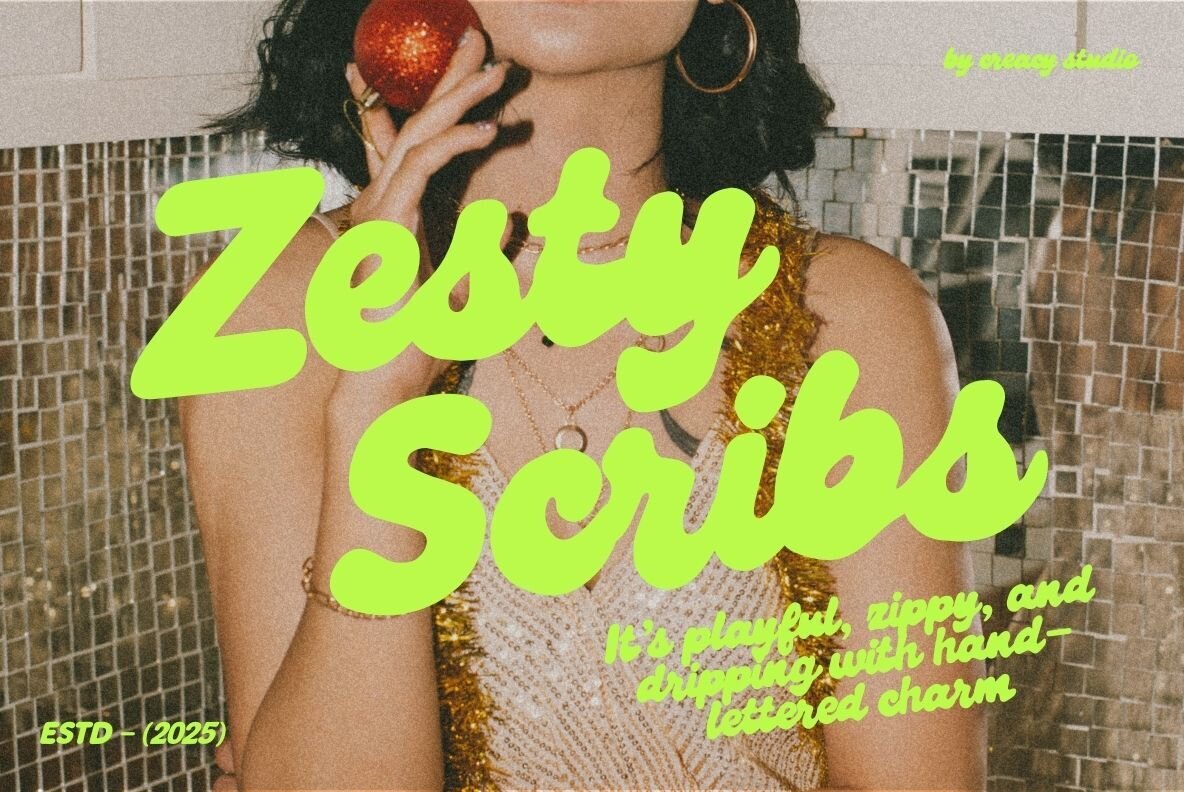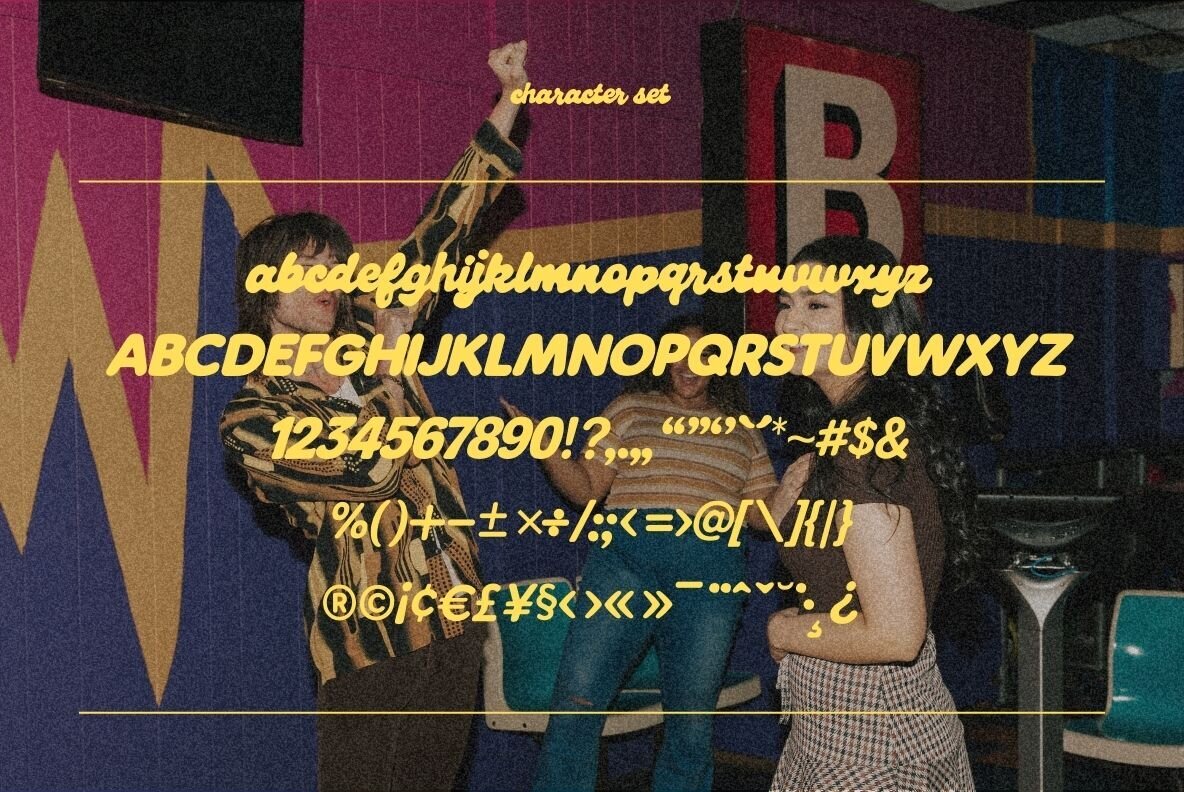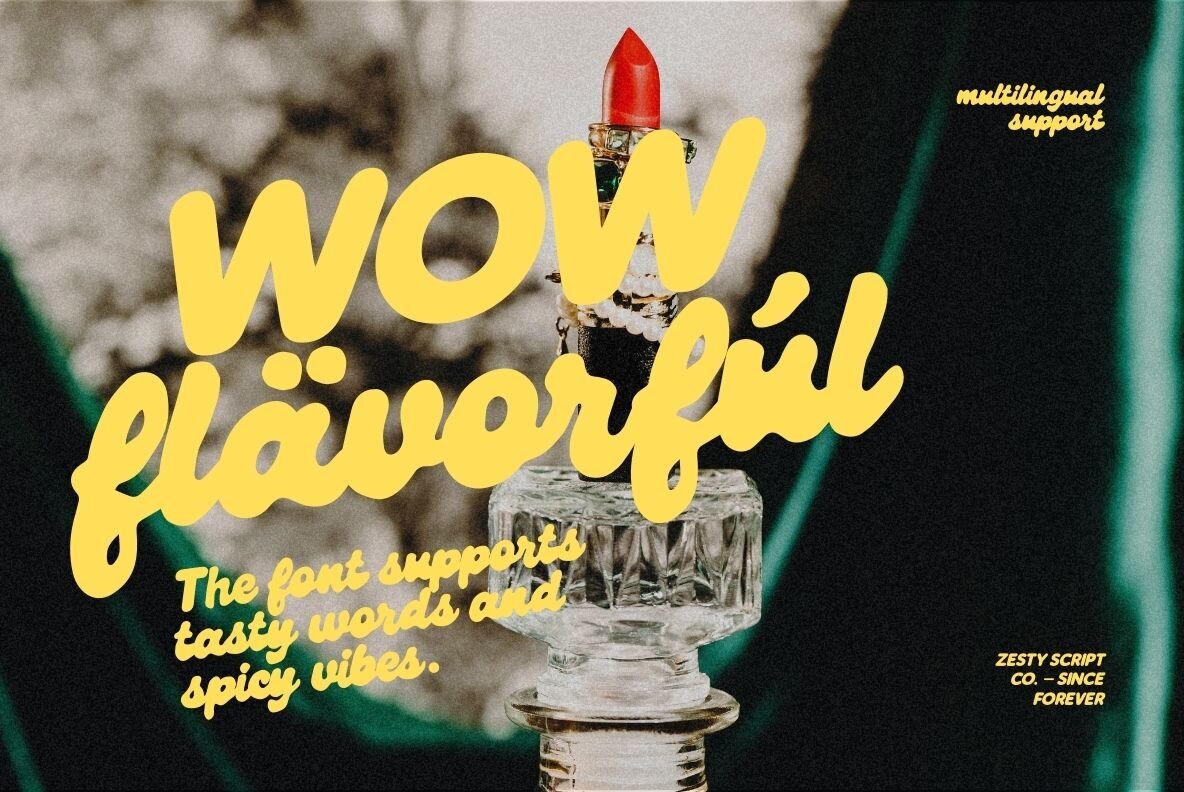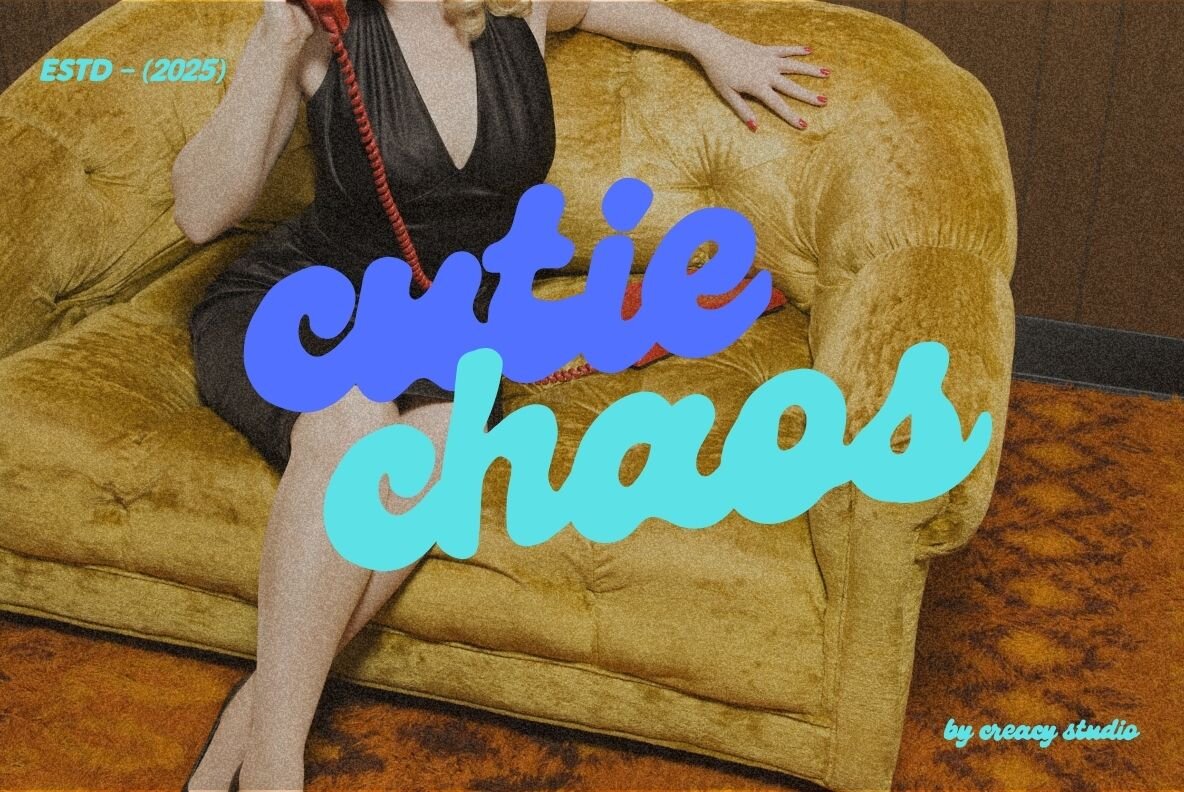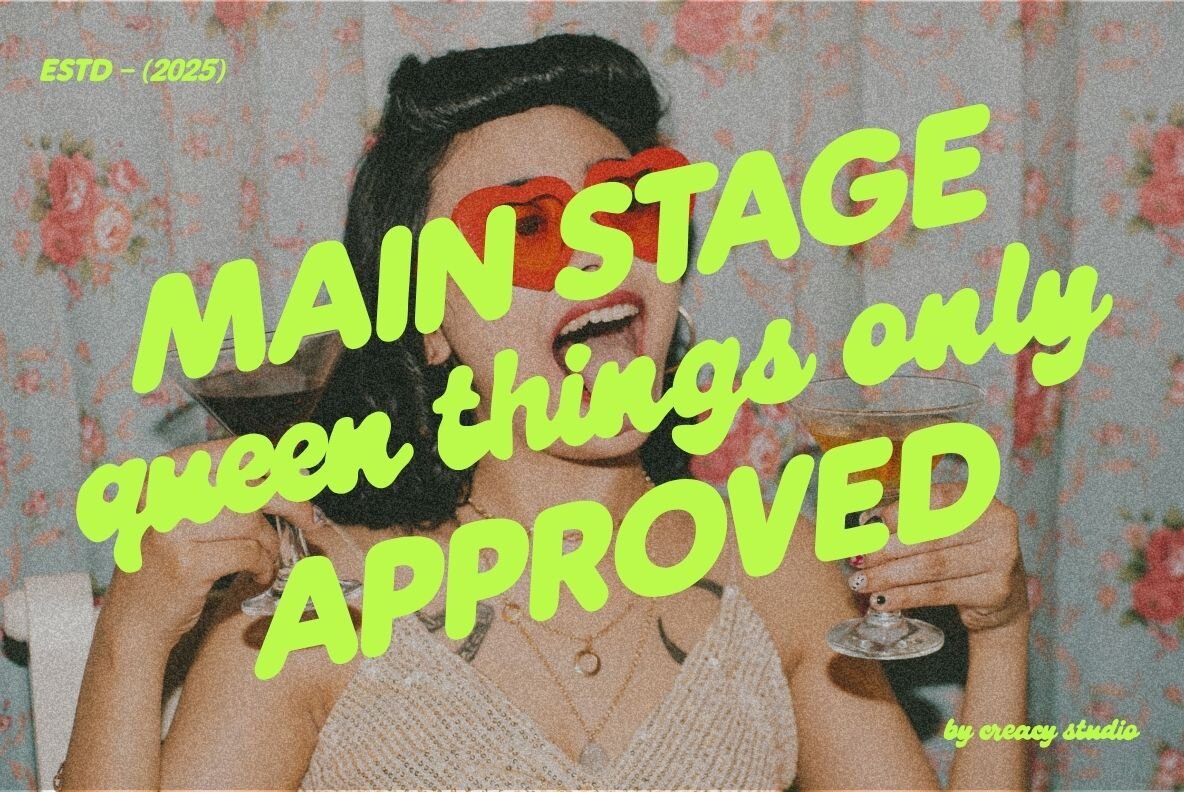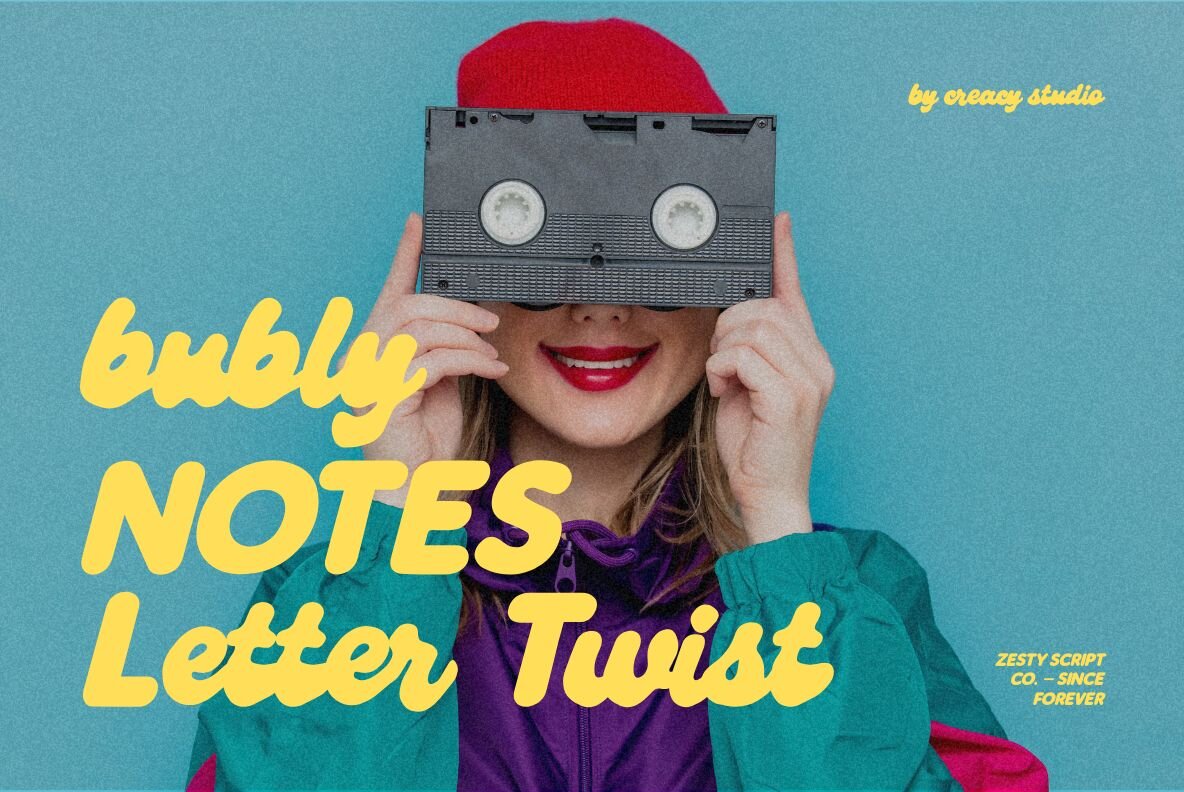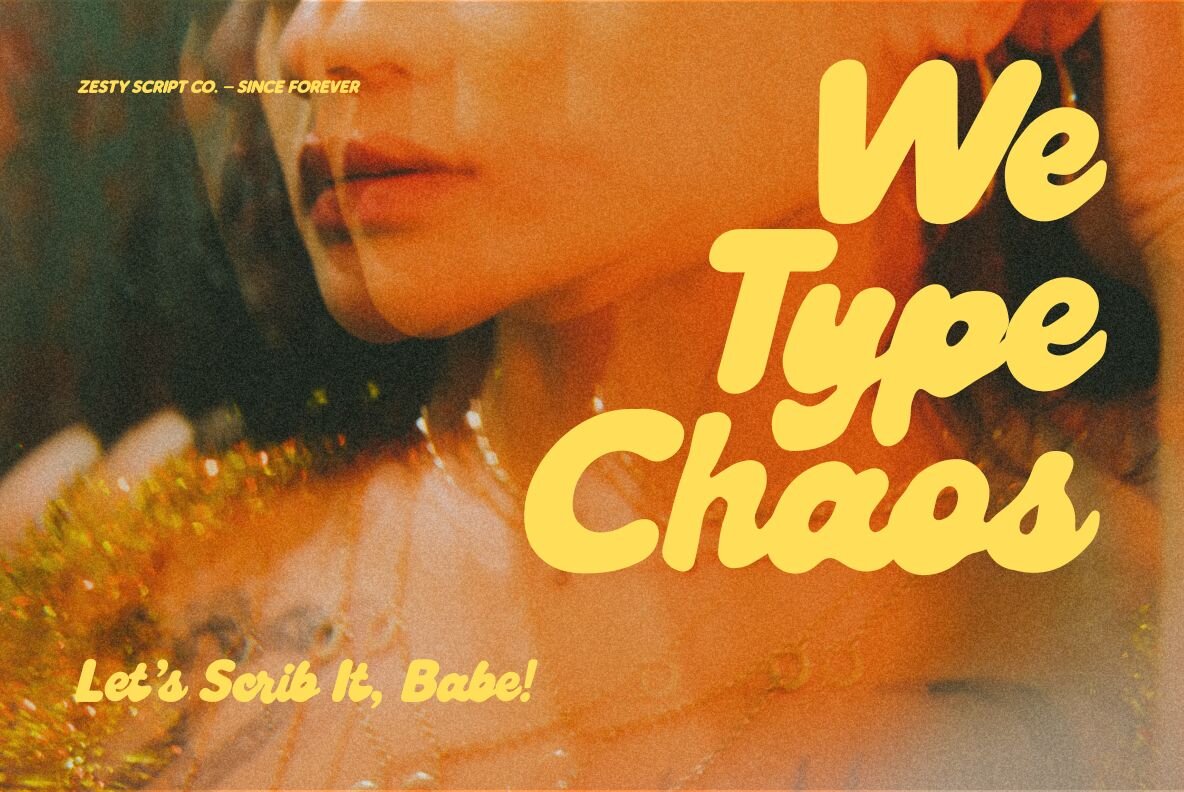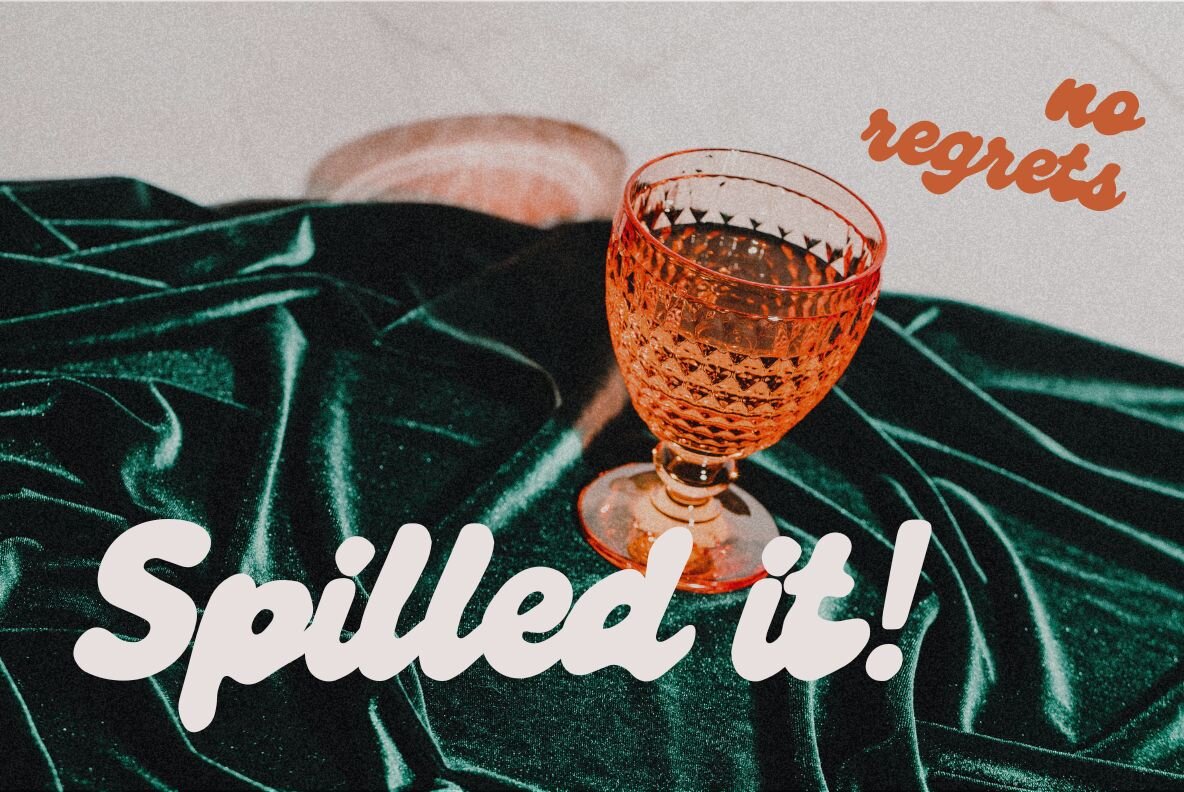
Zesty Scribs Font
Zesty Scribs Bold
Infuse your design projects with personality using Zesty Scribs, the vibrant script font that exudes hand-lettered charm. With its smooth, rounded shapes and an easygoing vibe, this typeface injects energy and fun into every creation. Whether crafting bold headlines, quirky logos, or memorable social media branding, Zesty Scribs is your ideal choice for making a striking impact. Perfect for lively projects yearning for a cheerful touch, Zesty Scribs adds a creative and joyful aesthetic that captivates attention. Features:Zesty Scribs: A Playful Script That Pops